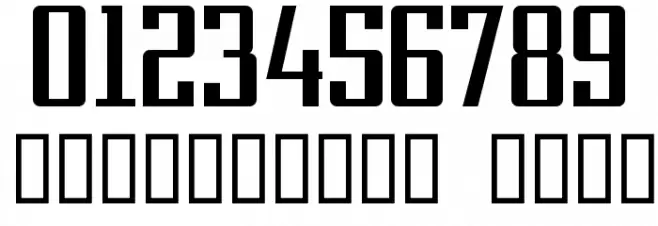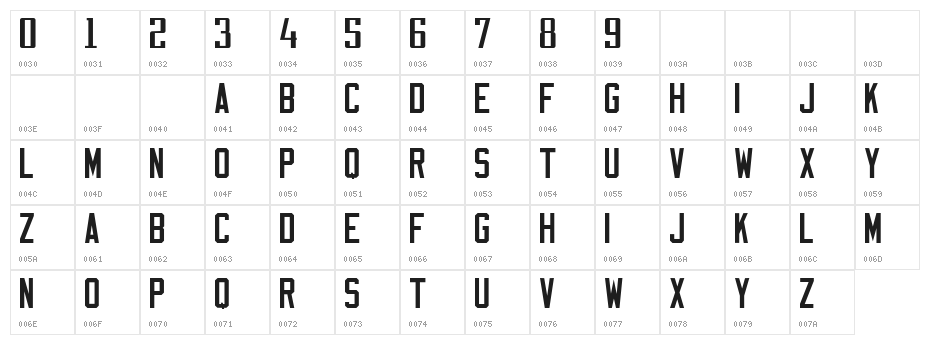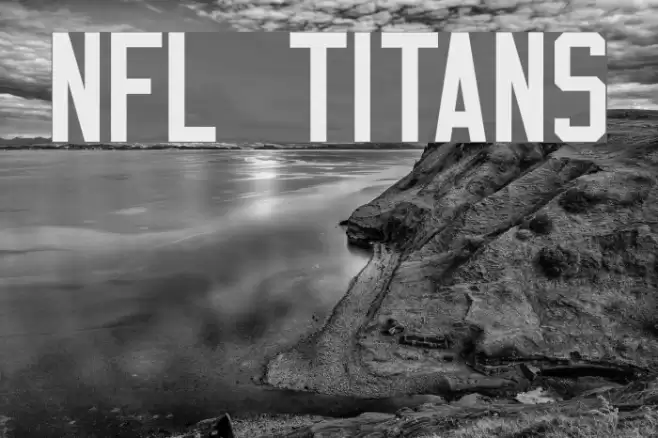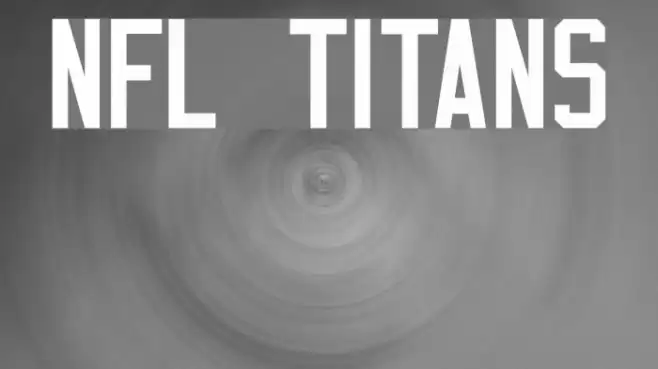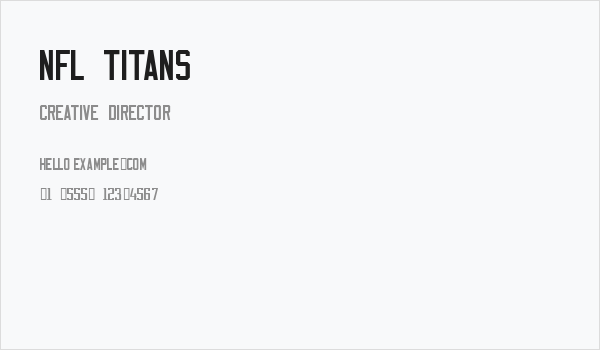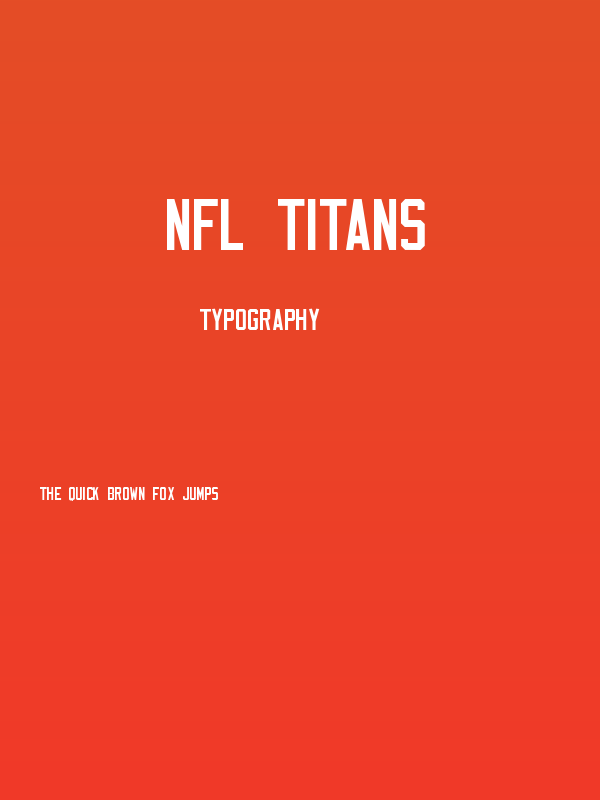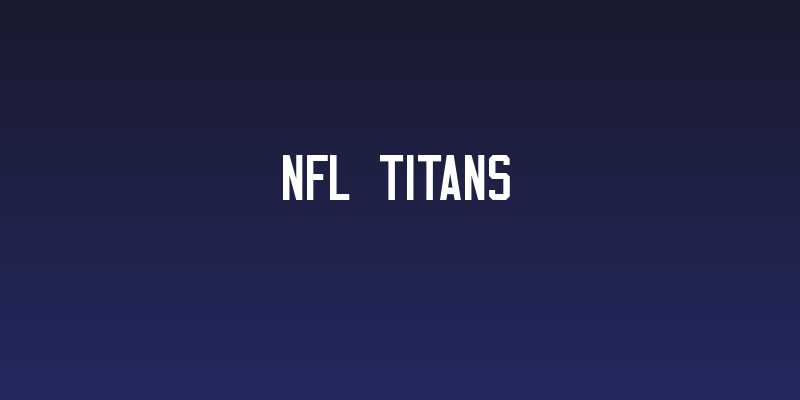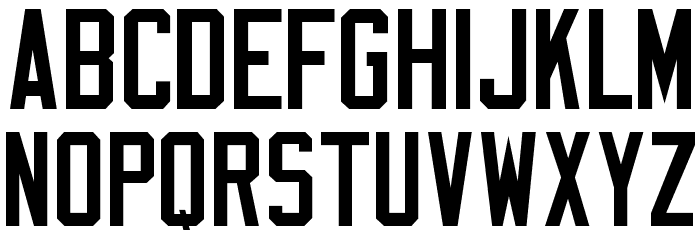
NFL Titans Font
NFL Titans Description
This font features a bold, geometric design with a strong, impactful presence. The characters are uniformly structured with sharp angles and straight lines, giving it a modern and assertive look. The uppercase letters are particularly striking, with a uniform height and width that create a cohesive and balanced appearance. The numbers follow the same design principles, ensuring consistency across all characters. The font's style is reminiscent of sports or team branding, making it ideal for projects that require a bold and energetic aesthetic.